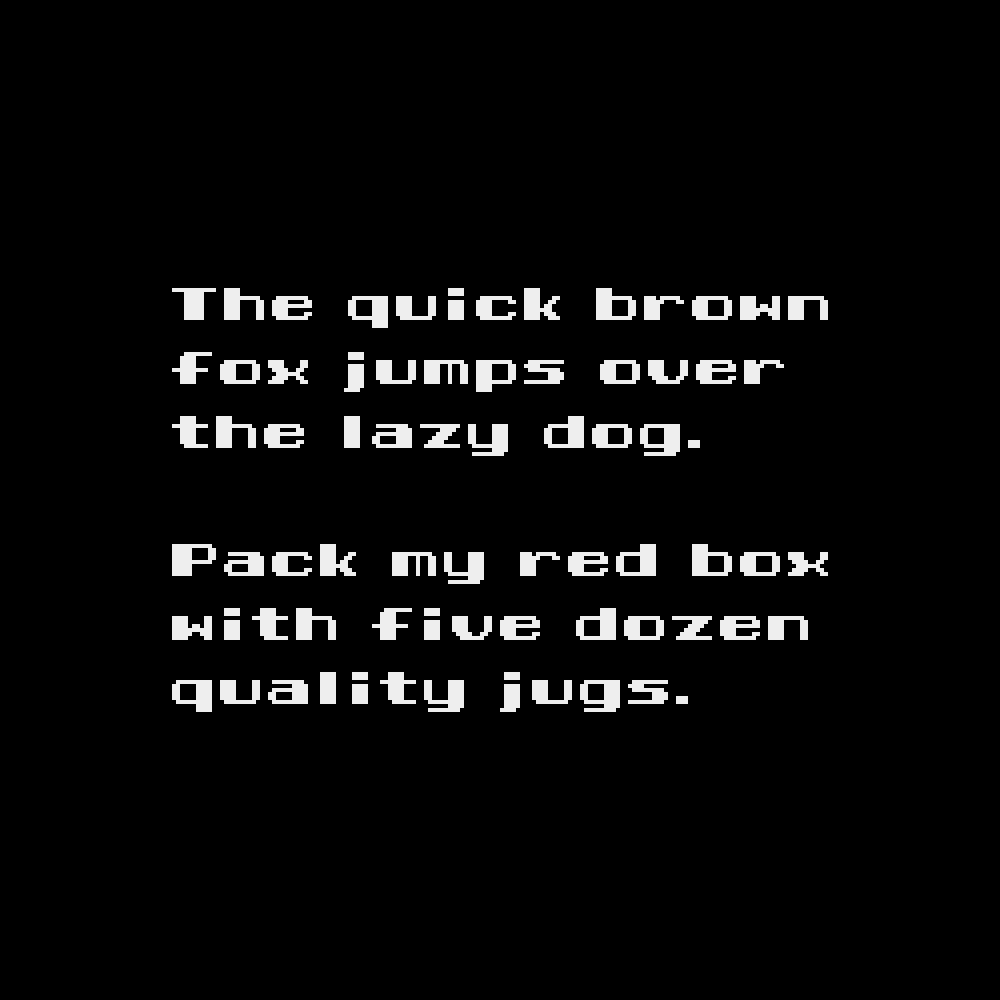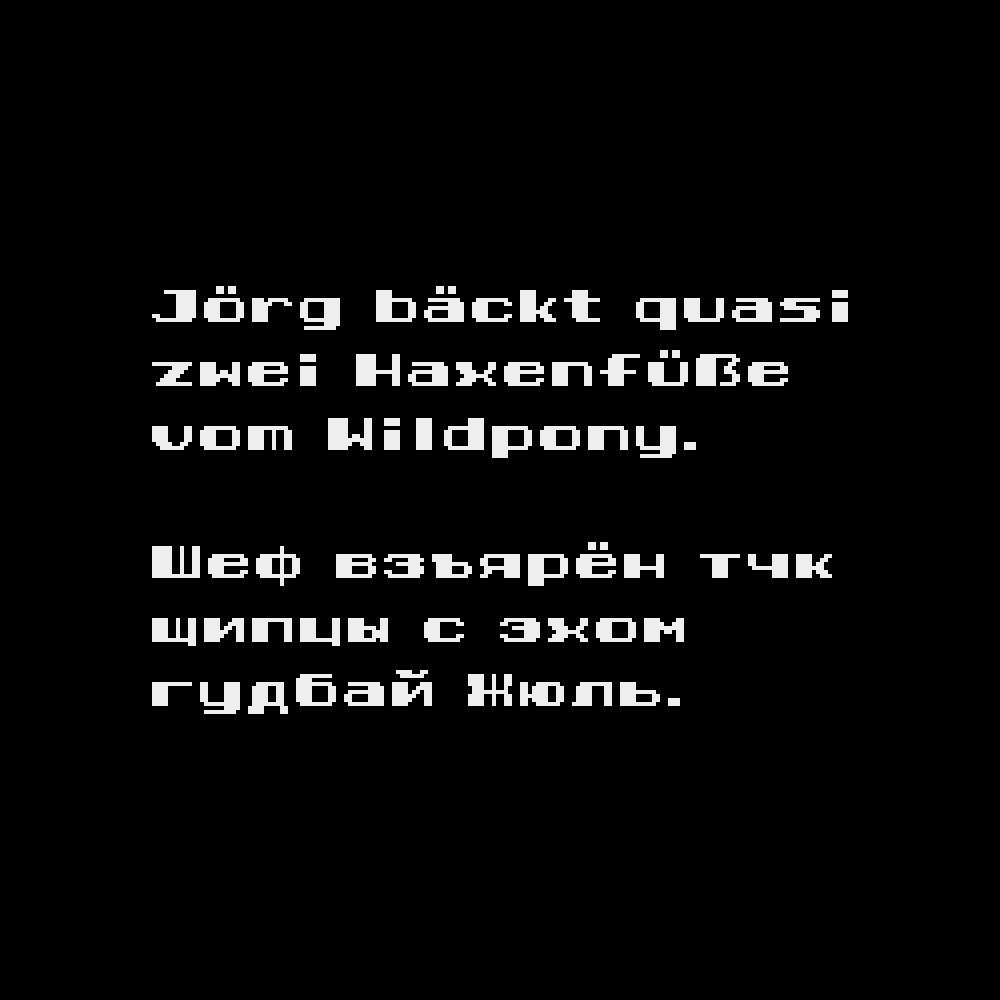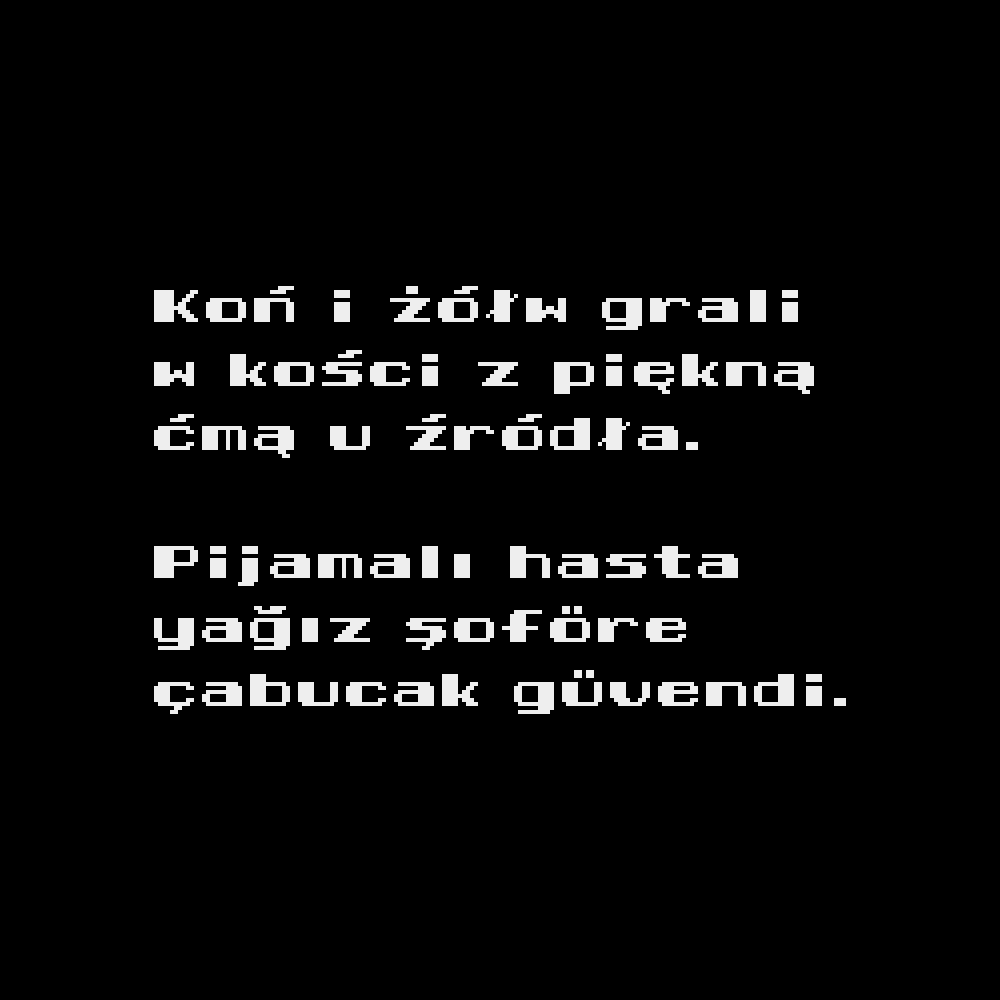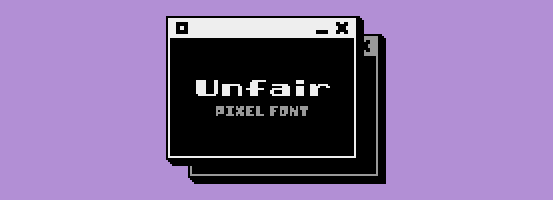
Pixel Font - UNFAIR
A downloadable pixel font
Unfair is a wide, retro, eccentric, 8px tall pixel font!
Full Character Set:
ABCDEFGHIJKLMNOPQRSTUVWXYZ
abcdefghijklmnopqrstuvwxyz
0123456789.,;:?!"'+-=*%_()
[]{}~#&@©®™°^`|/\<>…€$£¢¿¡“”‘’«»‹›„‚·• ÀÁÂÄÃÅĄÆÇĆÐÈÉÊËĘĞÌÍÎÏİŁÑŃÒÓÔÖÕŐØŒŚŞẞÞÙÚÛÜŰÝŸŹŻàáâäãåąæçćðèéêëęğìíîïıłñńòóôöõőøœśşßþùúûüűýÿźżАБВГҐДЕЁЄЖЗИІЇЙКЛМНОПРСТУФХЦЧШЩЪЫЬЭЮЯабвгґдеёєжзиіїйклмнопрстуфхцчшщъыьэюя
Supported languages:
English, French, Italian, German, Spanish, Portuguese, Danish, Swedish, Norwegian, Icelandic, Hungarian, Polish, Turkish, Russian, Ukrainian…